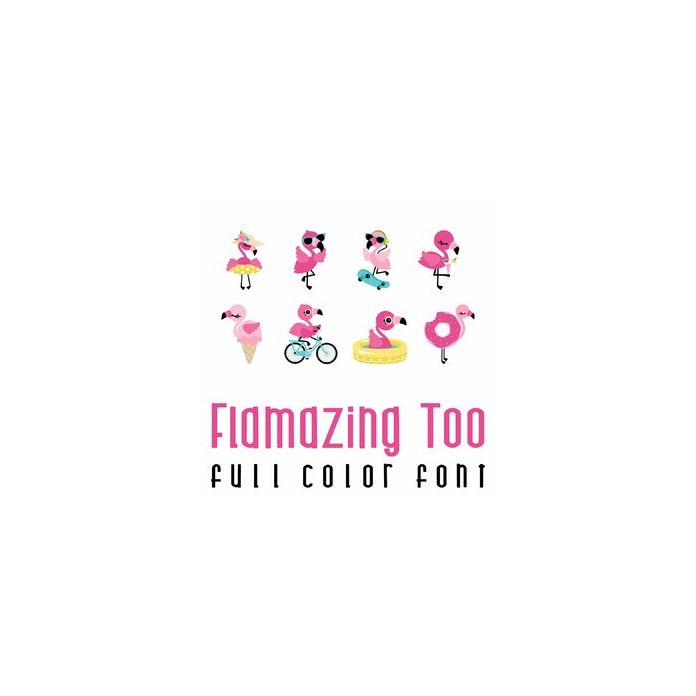
This adorable full color doodlebat font features beautiful flamingos living their best life. Perfect for cards, crafts, gifts, decor, scrap book pages, planner stickers and more!